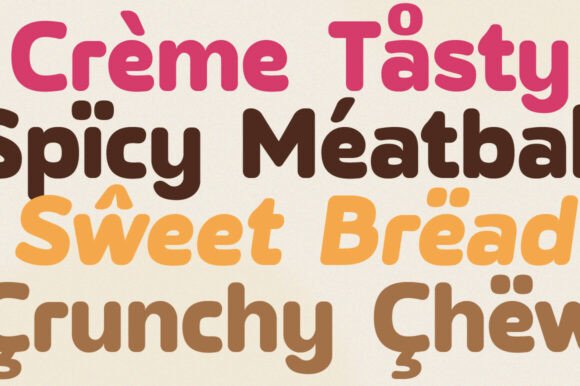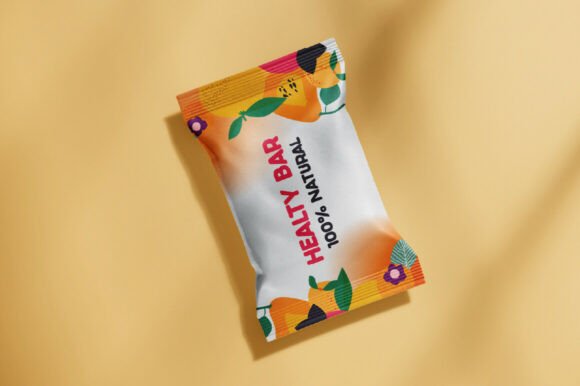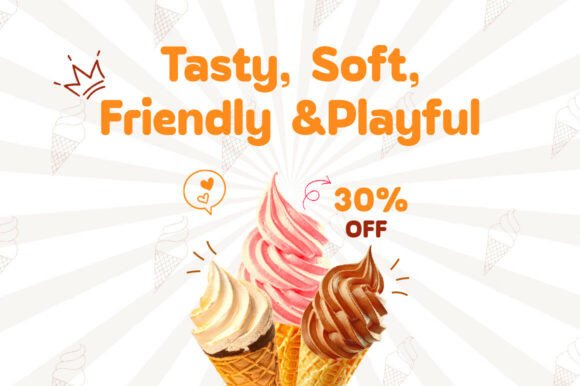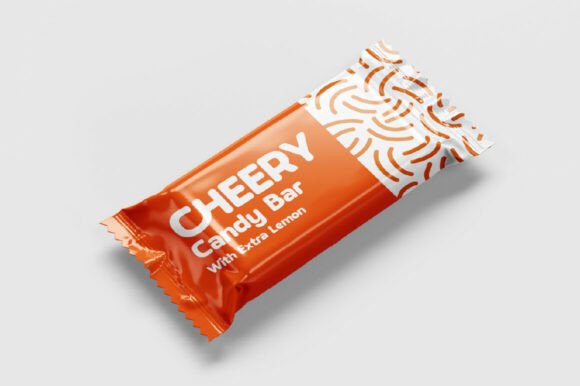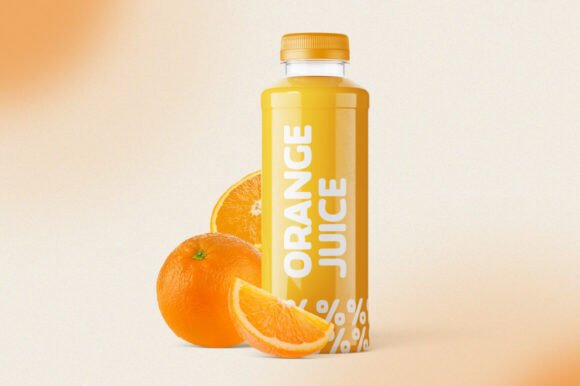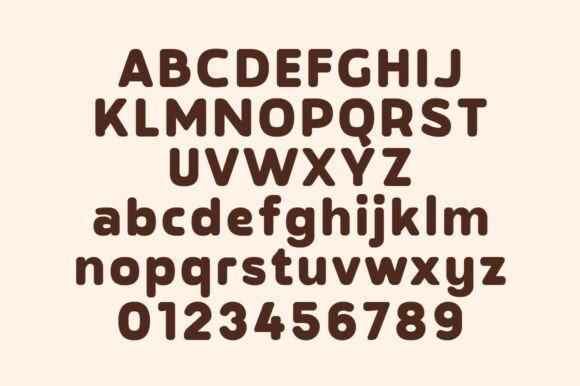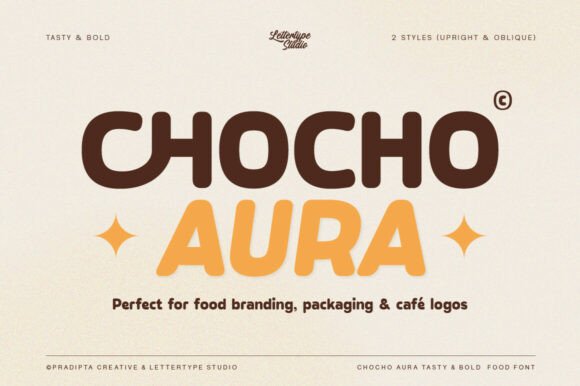
Introducing Chocho Aura Font: The Perfect Blend of Flavor and Style
In the world of design, fonts play a crucial role in conveying the personality and tone of a brand. For food brands, cafes, and restaurants, a font that exudes warmth, friendliness, and playfulness is essential. This is where Chocho Aura Font comes in – a bold, rounded display font that is specifically crafted for food branding, playful packaging, cafe logos, and anything delicious.
The Inspiration Behind Chocho Aura
Chocho Aura Font is inspired by the current “aura farming” and food design trends, which focus on creating a charming and inviting presence in food branding. The font’s design is also influenced by the growing demand for visually appealing packaging and social media posts that showcase food products in an appetizing way. With Chocho Aura, designers can create stunning visuals that instantly elevate product labels, menu layouts, and social media posts.
Key Features of Chocho Aura Font
So, what makes Chocho Aura Font so special? Here are some of its key features:
- Bold and Rounded: Chocho Aura Font is a bold, rounded display font that makes a statement. Its thick strokes and soft curves bring out a friendly, flavorful vibe that’s perfect for designs that need to feel warm, inviting, and fun.
- Tasty Personality: This font is specifically crafted for food branding, giving it a unique personality that is sure to make your designs stand out.
- Versatile: Chocho Aura Font is perfect for a wide range of applications, including product labels, menu layouts, social media posts, and more.
Why Choose Chocho Aura Font?
With so many fonts available, why choose Chocho Aura Font? Here are just a few reasons why designers and crafters love this font:
- Instantly Elevates Designs: Chocho Aura Font has a charming presence that instantly elevates product labels, menu layouts, and social media posts.
- Warm and Inviting: The font’s soft curves and thick strokes bring out a friendly, flavorful vibe that’s perfect for designs that need to feel warm, inviting, and fun.
- Perfect for Food Branding: Chocho Aura Font is specifically crafted for food branding, making it the perfect choice for designers who work with food brands, cafes, and restaurants.
In conclusion, Chocho Aura Font is a bold, rounded display font that is perfect for food branding, playful packaging, cafe logos, and anything delicious. Its soft curves and thick strokes bring out a friendly, flavorful vibe that’s perfect for designs that need to feel warm, inviting, and fun. With its charming presence and versatile design, Chocho Aura Font is sure to elevate your designs and make them stand out in a crowded market.